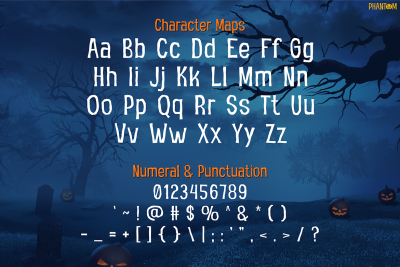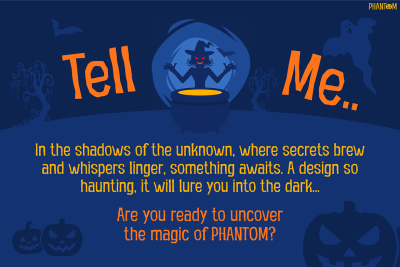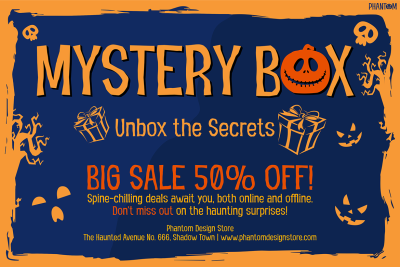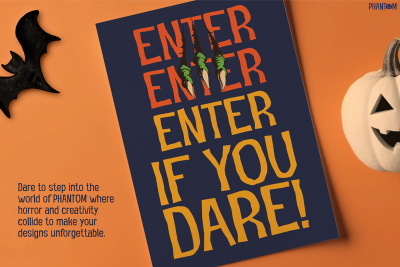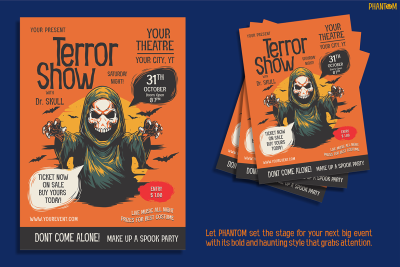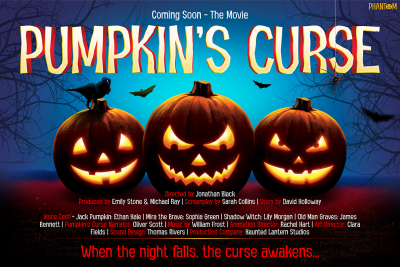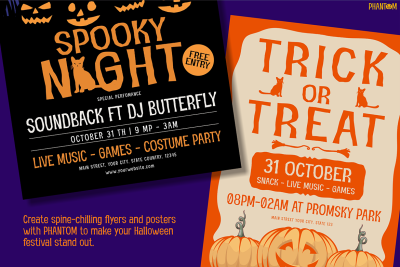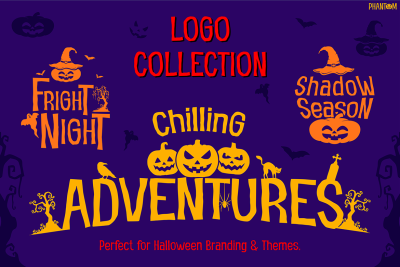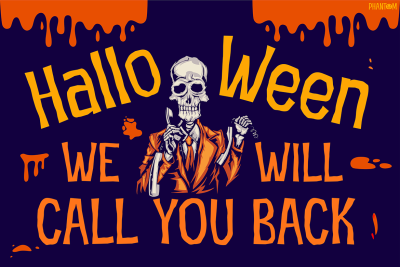
Scary Font PHANTOM is a bold, eerie display typeface designed to evoke a chilling, Halloween-inspired atmosphere. Its irregular, jagged letterforms immediately create an unsettling vibe, making it perfect for projects that aim to thrill their audience. Moreover, the hand-drawn, imperfect edges add a sense of rawness and chaos, further enhancing its spooky character. With its eye-catching style, PHANTOM sets the tone for horror-themed designs, making it an excellent choice for seasonal events, party invitations, or haunted attractions.
Furthermore, the playful yet sinister look of Scary Font PHANTOM offers versatility for various creative uses. Its striking orange tones pair perfectly with dark backgrounds, amplifying the eerie effect. Additionally, whether you’re designing posters, banners, or social media graphics, PHANTOM ensures your message stands out. Its bold design not only guarantees readability but also maintains a haunting aesthetic, making it suitable for both digital and print media.
Scary Font PHANTOM Best Suited For
Scary Font PHANTOM is ideal for designers, event organizers, and brands looking to create spooky visual identities. For instance, Halloween-themed projects like costume parties, haunted house promotions, or seasonal marketing campaigns benefit greatly from its distinct style. Itโs also excellent for horror movie posters, book covers, and gaming graphics.
Moreover, small businesses offering Halloween-themed products can use PHANTOM to enhance their packaging or advertisements. Similarly, social media influencers focusing on spooky content can elevate their posts with this bold and thematic font.
In addition, educators can use PHANTOM for Halloween activities like posters or creative worksheets to engage students. Likewise, DIY enthusiasts can incorporate it into personal projects such as party decorations, greeting cards, or custom merchandise.
In conclusion, Scary Font PHANTOM is a must-have for anyone wanting to infuse their designs with eerie charm. Its versatility and spooky vibe, combined with its bold and striking style, make it perfect for Halloween or horror-themed projects.